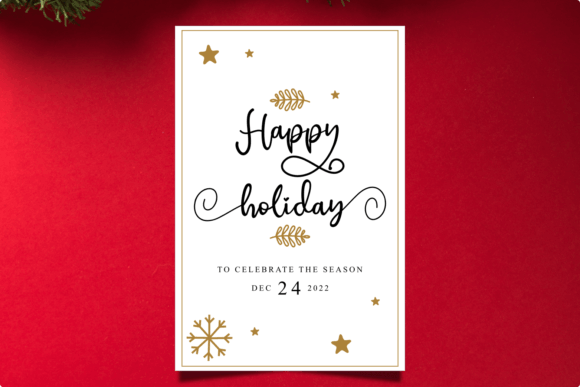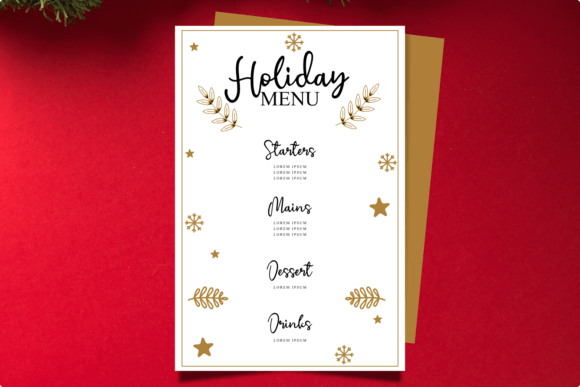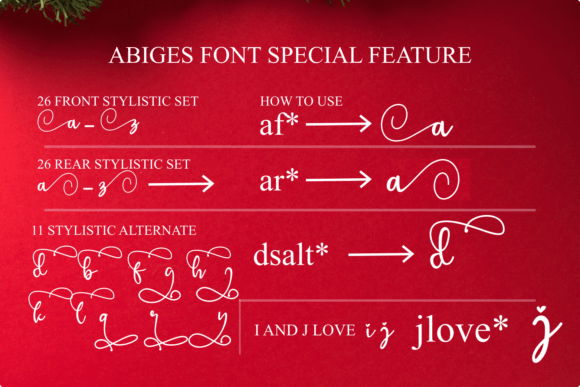
Introducing Abiges Font: The Ultimate Romantic Calligraphy Typeface
Are you looking for a font that can add a touch of luxury and romance to your design projects? Look no further than Abiges Font! This beautiful calligraphy typeface is perfect for designers and crafters who want to create stunning visuals that exude elegance and sophistication. In this article, we’ll take a closer look at Abiges Font, its features, and how it can elevate your design game.
What is Abiges Font?
Abiges Font is a romantic and sweet calligraphy typeface that is designed to make your designs stand out. Its characters are carefully crafted to dance along the baseline, creating a sense of movement and fluidity. This font is perfect for a variety of design projects, including wedding invitations, branding, packaging, and more.
Key Features of Abiges Font
So, what makes Abiges Font so special? Here are some of its key features:
• Romantic and Sweet Design: Abiges Font is designed to evoke feelings of love and romance. Its delicate and cursive lines make it perfect for designs that require a touch of elegance.
• Dancing Characters: The characters in Abiges Font are designed to dance along the baseline, creating a sense of movement and fluidity.
• Luxury Spark: Abiges Font is perfect for designs that require a touch of luxury and sophistication. It will add a high-end feel to any project.
• PUA Encoded: Abiges Font is PUA encoded, which means you can access all of the glyphs and swashes with ease. This makes it easy to use and customize.
Benefits of Using Abiges Font
So, why should you use Abiges Font in your design projects? Here are some benefits:
• Elegant and Sophisticated Designs: Abiges Font will add a touch of elegance and sophistication to any design project.
• Easy to Use: Abiges Font is PUA encoded, making it easy to access all of the glyphs and swashes.
• Versatile: Abiges Font can be used for a variety of design projects, including wedding invitations, branding, packaging, and more.
• High-Quality: Abiges Font is a high-quality font that is designed to deliver exceptional results.
Who Can Use Abiges Font?
Abiges Font is perfect for a variety of designers and crafters, including:
• Graphic Designers: Abiges Font is perfect for graphic designers who want to create elegant and sophisticated designs.
• Wedding Designers: Abiges Font is perfect for wedding designers who want to create beautiful wedding invitations and stationery.
• Crafters: Abiges Font is perfect for crafters who want to create beautiful and unique crafts, such as handmade cards and gift tags.
• Branding Experts: Abiges Font is perfect for branding experts who want to create high-end brands that exude elegance and sophistication.
Author Infontree
Abiges Font is a romantic and sweet calligraphy typeface that is perfect for designers and crafters who want to create elegant and sophisticated designs. Its dancing characters, luxury spark, and PUA encoding make it a versatile and high-quality font that can be used for a variety of design projects. Whether you’re a graphic designer, wedding designer, crafter, or branding expert, Abiges Font is a great addition to your font collection.